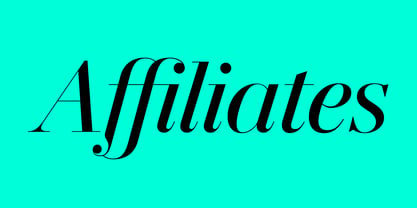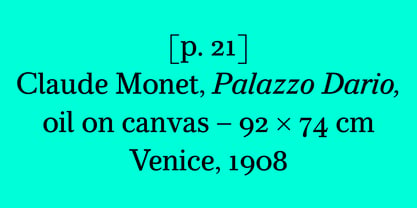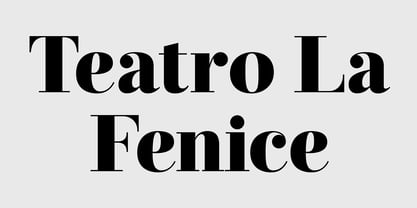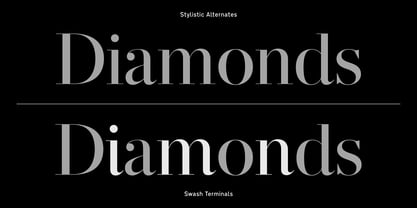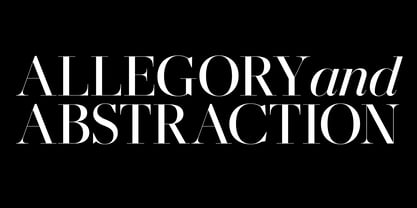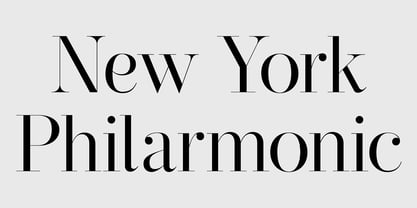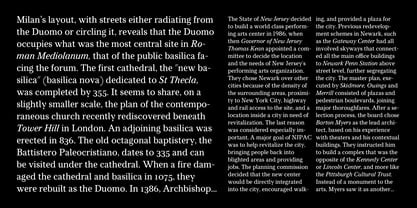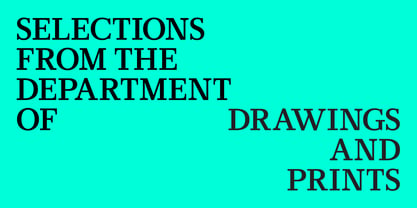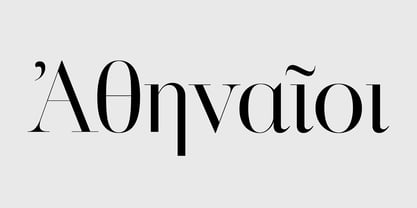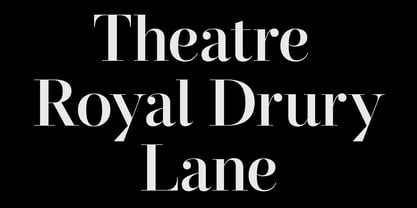
CF Ifigeneia Alt
by Fonts.GR
The CF Ifigeneia Alt Font Family was designed by Panos Haratzopoulos and published by Fonts.GR. CF Ifigeneia Alt contains 19 styles and family package options. More about this family
CF Ifigeneia Alt is a versatile sans serif typeface that comes in two contrasting styles: high contrast, ideal for headlines and larger text sizes, and low contrast, perfect for body text and smaller sizes. Originally designed in the Light weight around 2004–05 for a print fashion magazine, the font underwent a redesign, adding new weights and italics, and was released approximately twenty years after its initial presentation. It is available as individual weights/styles, both upright and italic, featuring Small Caps and Greek Polytonic characters (10 Display and 10 Text), or as a single Variable file that allows for the use of intermediate stages.
Designers: Panos Haratzopoulos
Foundry: Fonts.GR